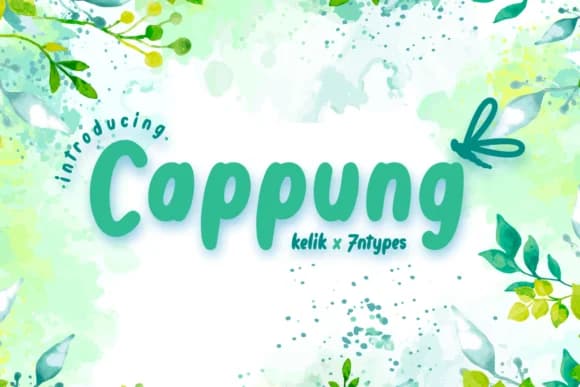
This font brings genuine warmth and distinctive personality to any creative brief. Cappung, designed by Kelik, is a distinctly chunky handwritten typeface with rounded letterforms that feel naturally approachable rather than polished or formal.
The playful, casual nature of Cappung makes it ideal for wedding invitation suites, greeting card designs, children's book covers, and small business logos for cafes or boutiques that value a personal touch. Its thicker stroke weight ensures solid legibility even at smaller sizes, so it works just as well on Etsy product labels and DIY craft signage as it does at larger display sizes. The friendly character feels right at home on gift tags, scrapbooking layouts, or personal stationery sets where you genuinely want warmth without pretension. When you're working on projects that need genuine human touch rather than corporate polish, Cappung delivers that sense of care and approachability instantly, making it a smart choice for anyone building a brand around authenticity and connection.
Cappung Font is a script font that shines as a display or heading face. Pair it with a clean sans-serif or serif font for body text β the contrast creates a clear hierarchy while the two styles stay balanced and easy to read.